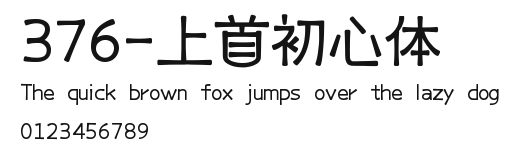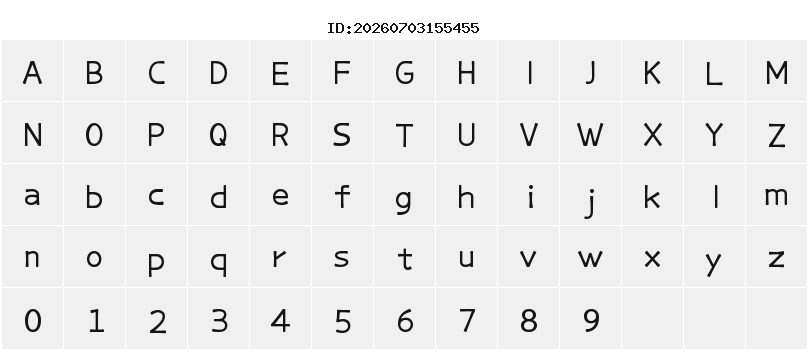
376-上首初心体 Preview
• Font Name: 376-上首初心体
• Full Font Name: 376-上首初心体
• Manufacturer: 上首造字
About 376-上首初心体.ttf
376-上首初心体.ttf is a modern, elegant sans-serif font designed for ultimate readability and visual harmony. Perfect for branding, headlines, web design, and print materials.